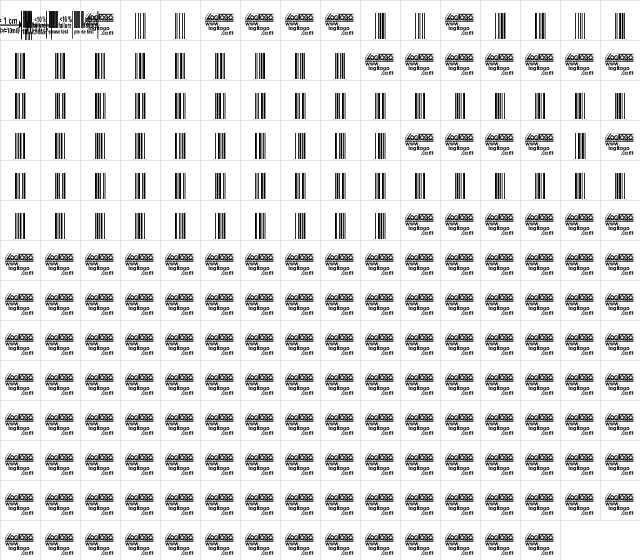
Code 39-hoch-Logitogo Regular Free Font
Code 39-hoch-Logitogo Regular
Foundry: Logitogo/ M￿
Design Context for Code 39-hoch-Logitogo
Code 39-hoch-Logitogo uses fixed-width spacing throughout, giving it the structured, systematic character associated with coding environments and technical documentation.